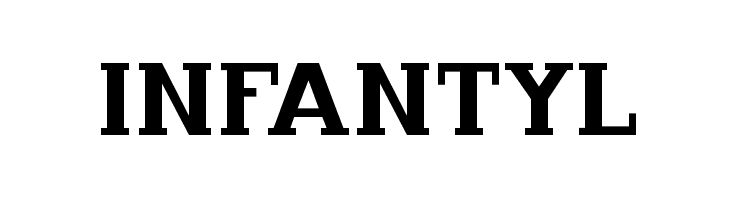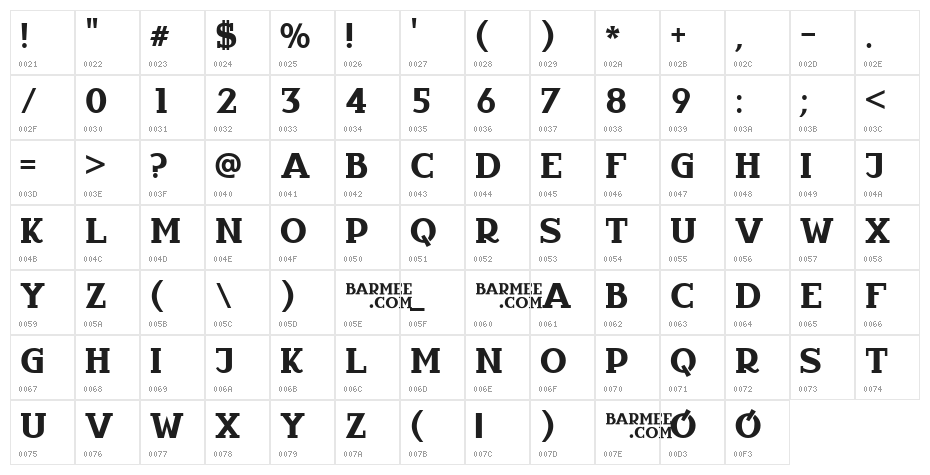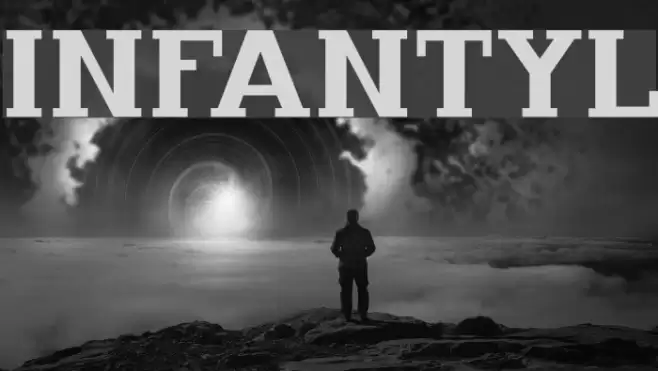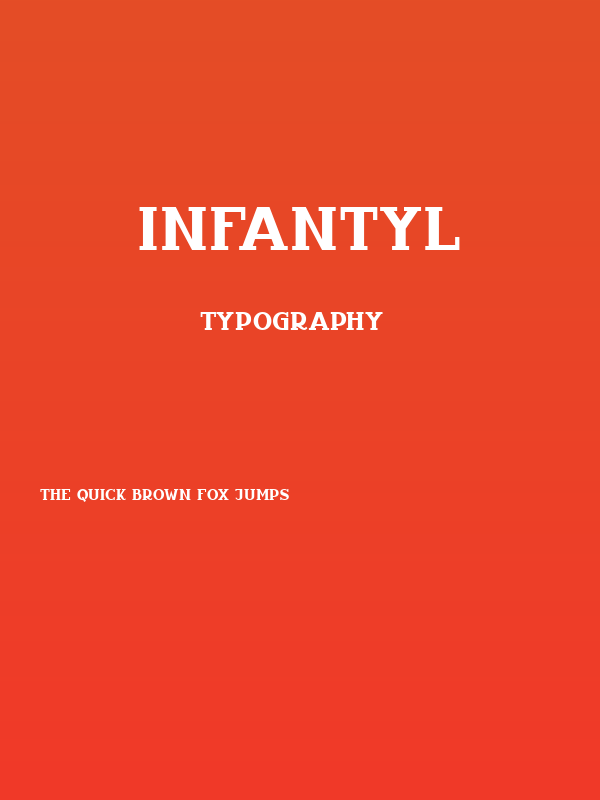
Infantyl Font
Infantyl Description
This font features bold, strong strokes with a classic serif style, giving it a traditional yet authoritative appearance. The serifs are pronounced, adding a touch of elegance and formality. The characters are well-defined and maintain a consistent weight throughout, ensuring readability and clarity. The numbers and special characters complement the alphabet with similar boldness and style, making it versatile for various uses. The overall design is balanced, with a slight emphasis on vertical strokes, enhancing its classic appeal.
| Use Case | Headlines, Logos, Editorial Design |
| Proposed Projects | Ideal for projects requiring a formal and traditional touch, such as book covers, editorial design, certificates, and branding materials. |